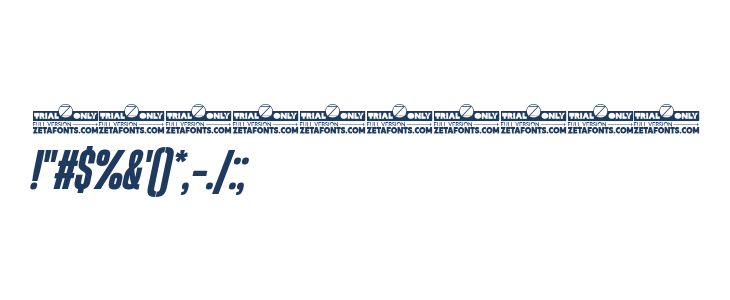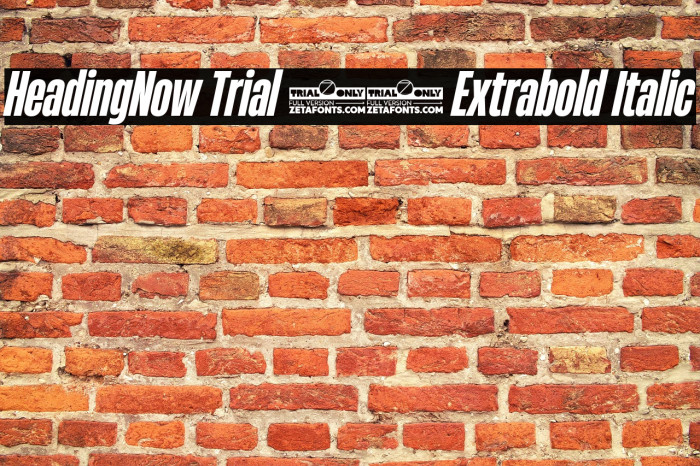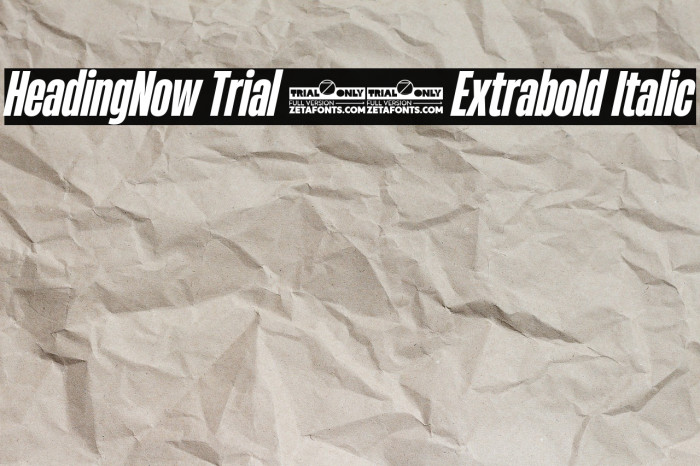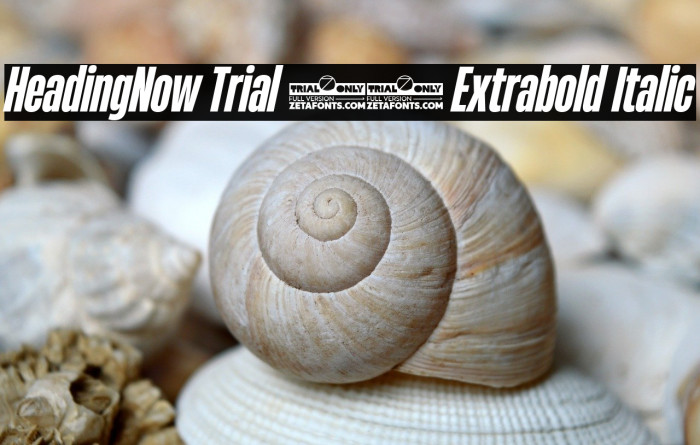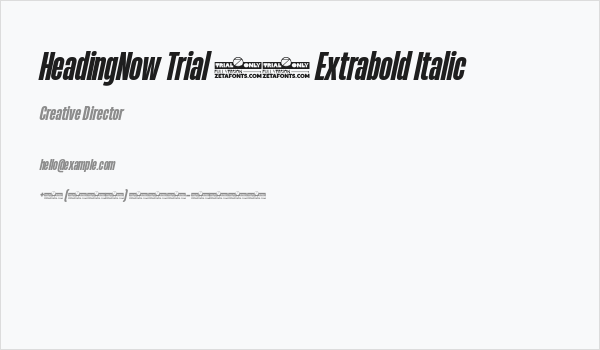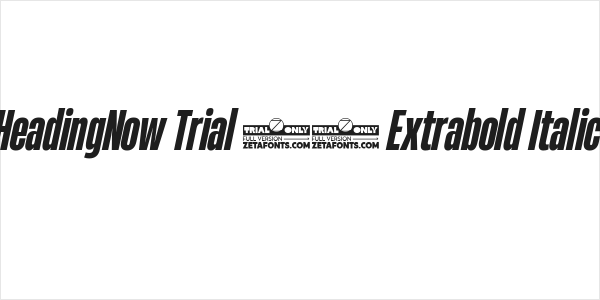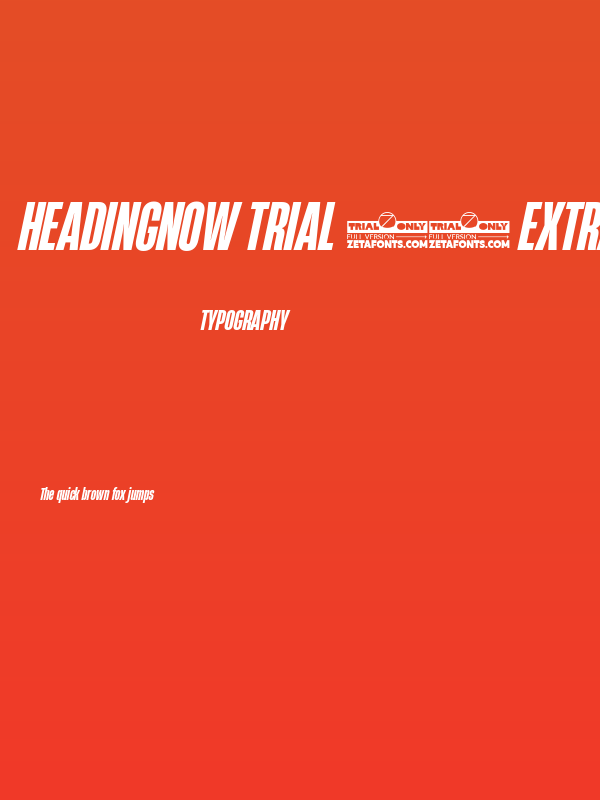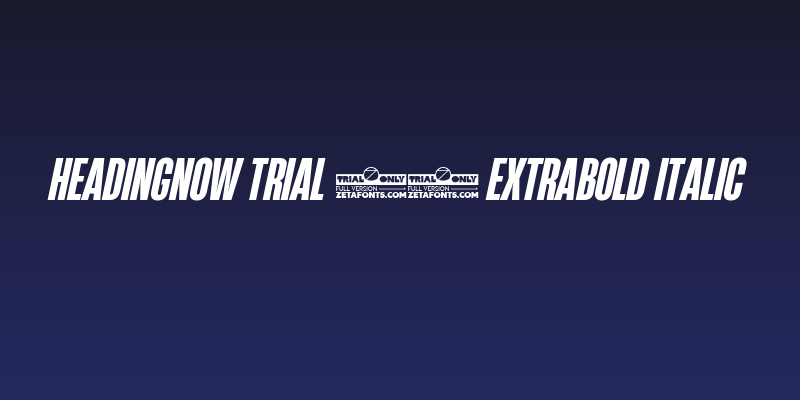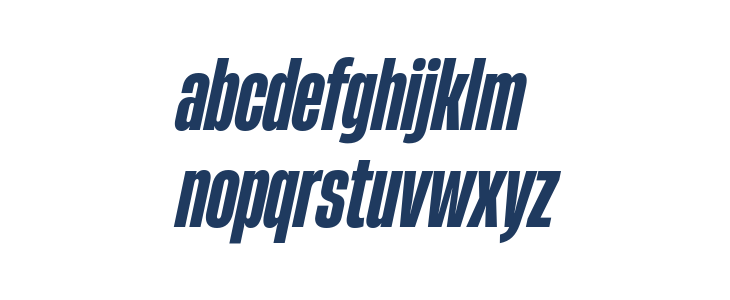
HeadingNow Trial 37 Extrabold Italic Font
HeadingNow Trial 37 Extrabold Italic Description
This font features a bold and dynamic style with an italic slant, giving it a sense of movement and urgency. The characters are tightly spaced, enhancing the compact and impactful appearance. The strokes are thick and consistent, providing a strong visual presence. The uppercase letters are tall and commanding, while the lowercase letters maintain a similar boldness. The numerals and special characters are designed to match the overall robust and energetic feel. This font is ideal for making a statement and capturing attention.